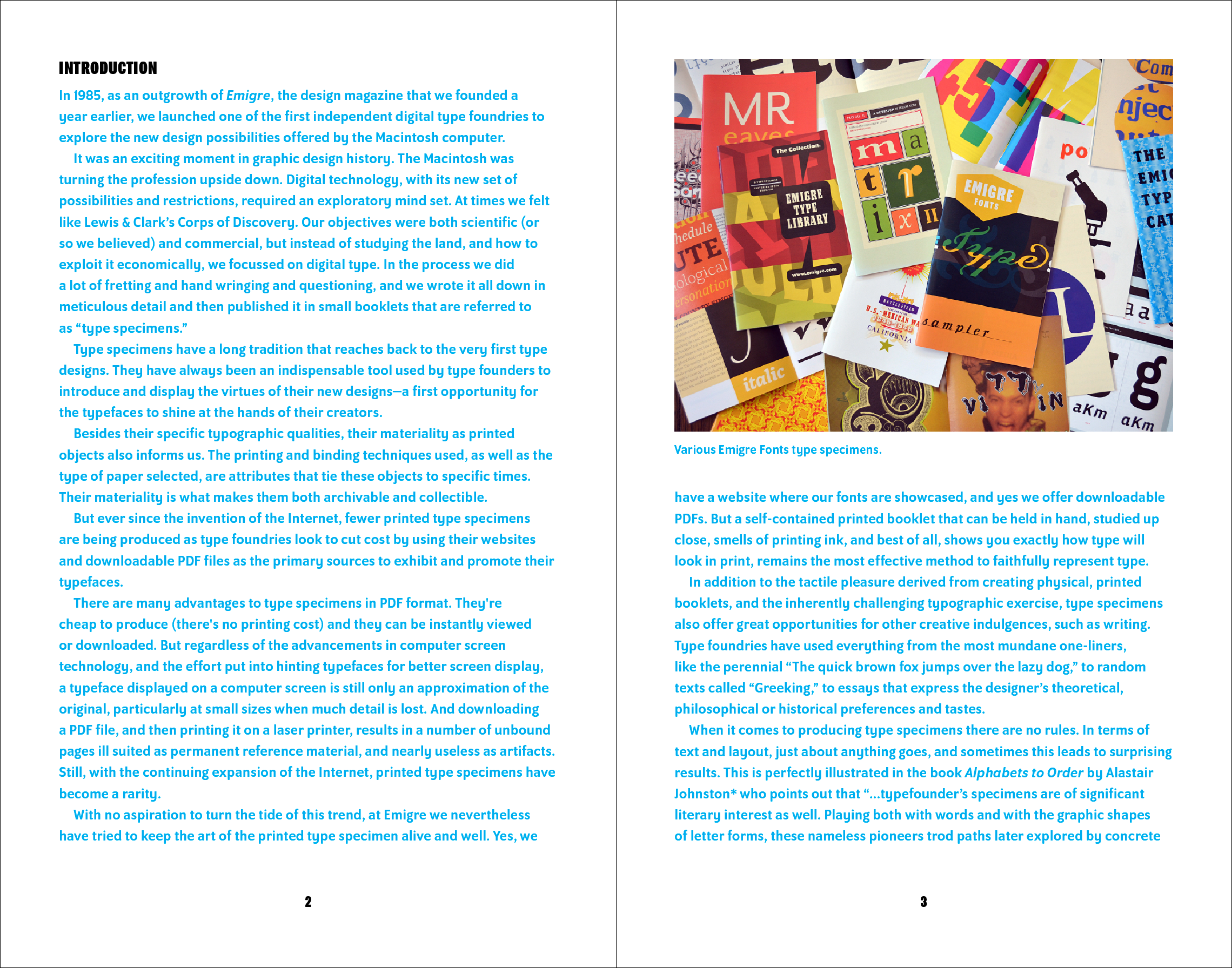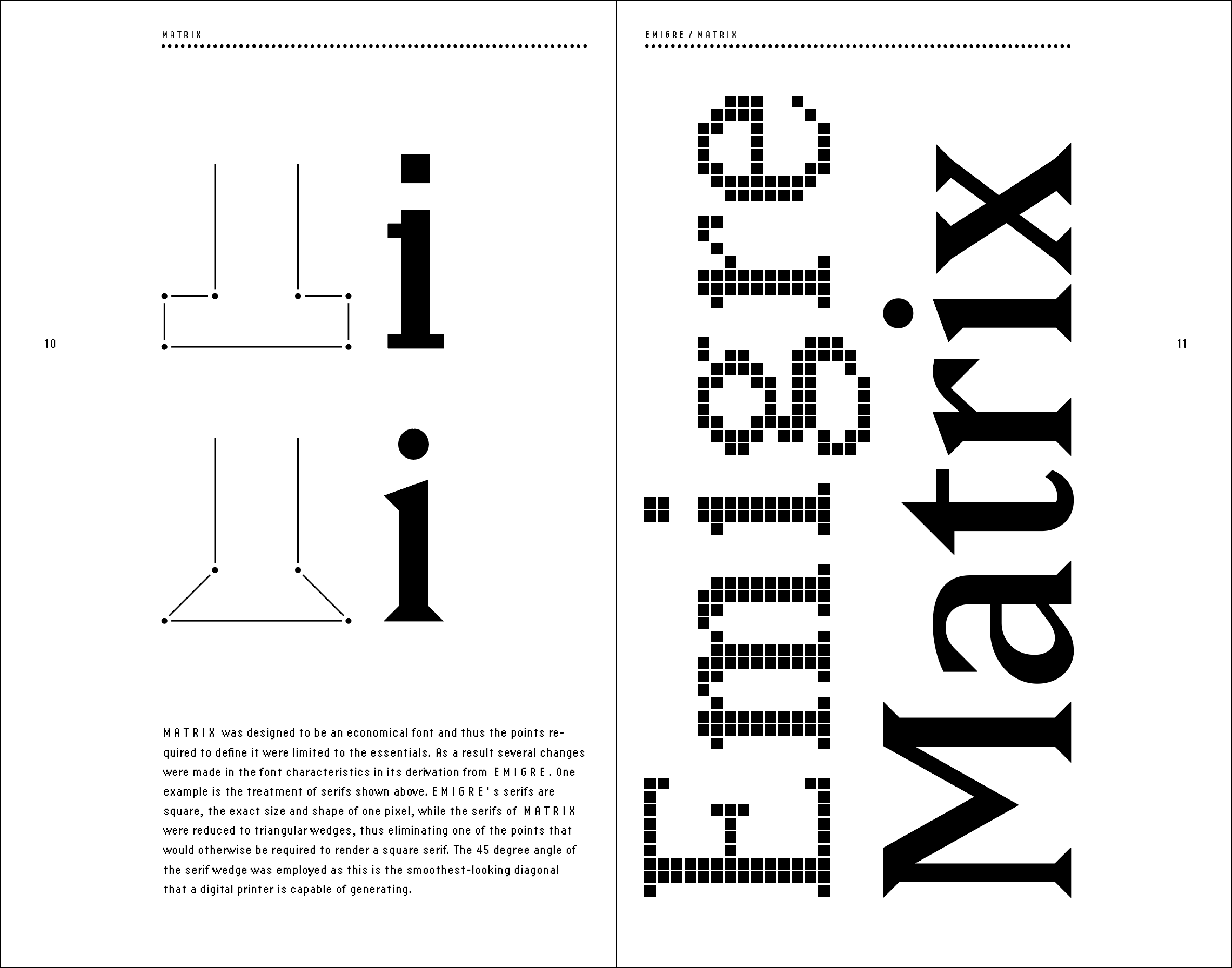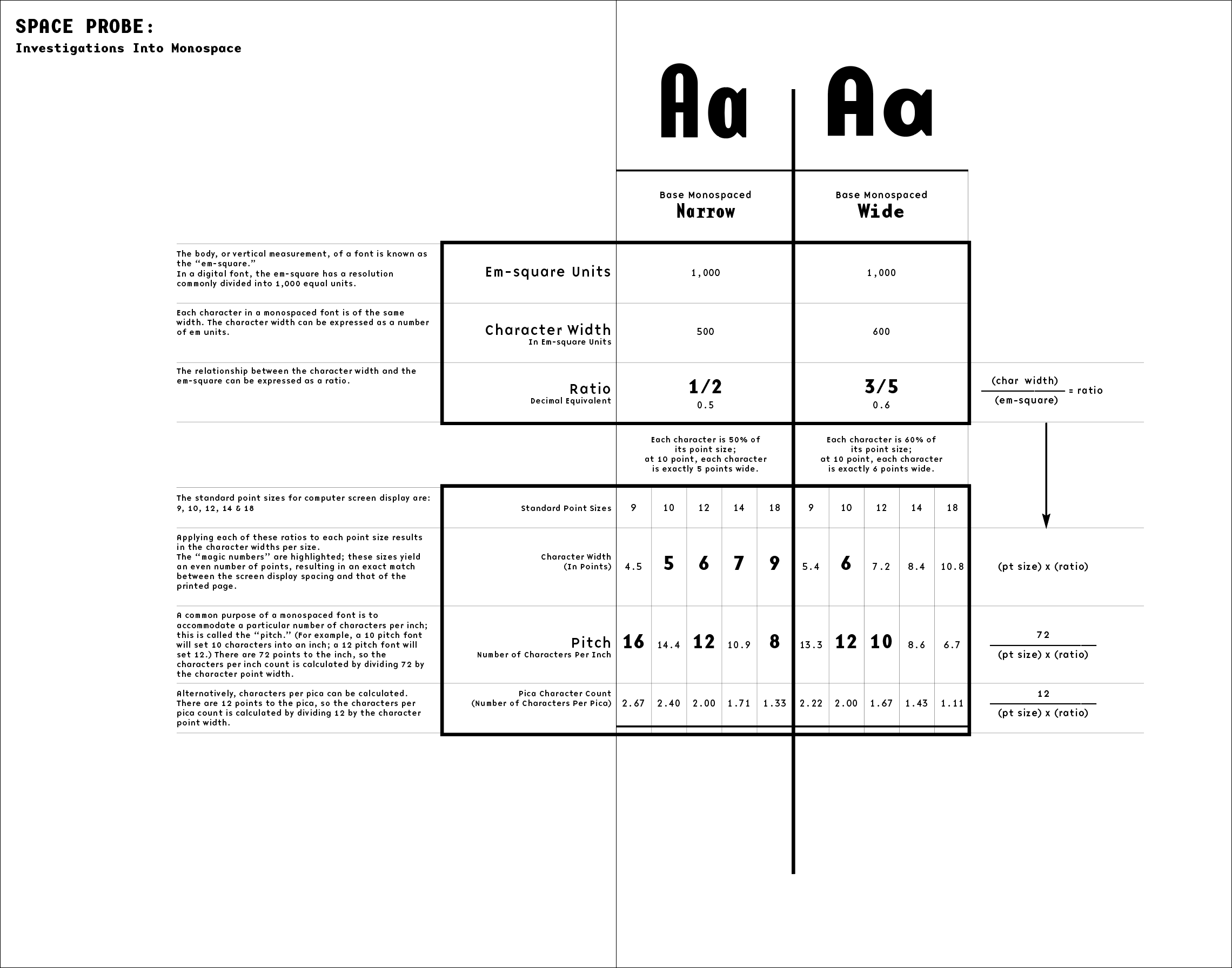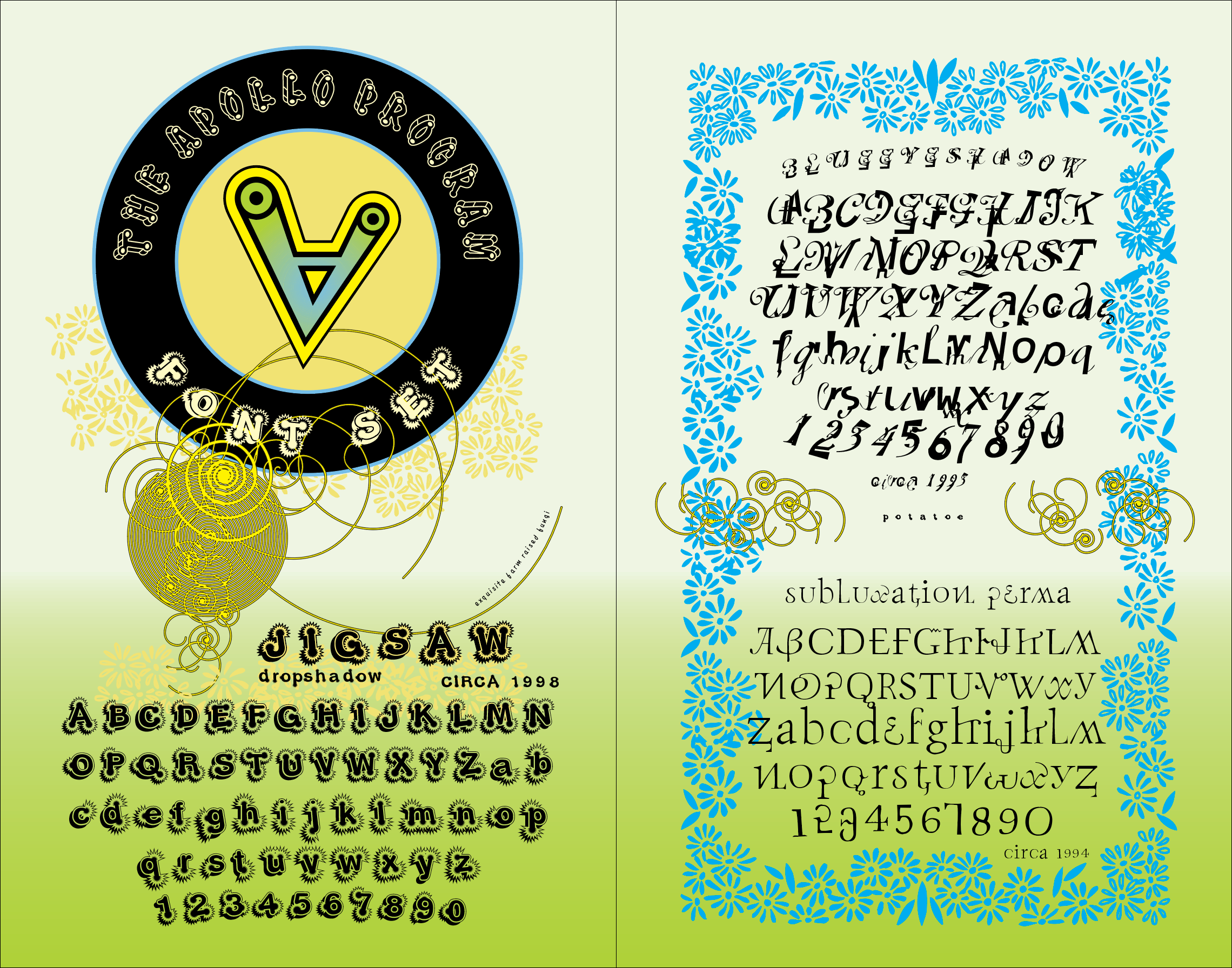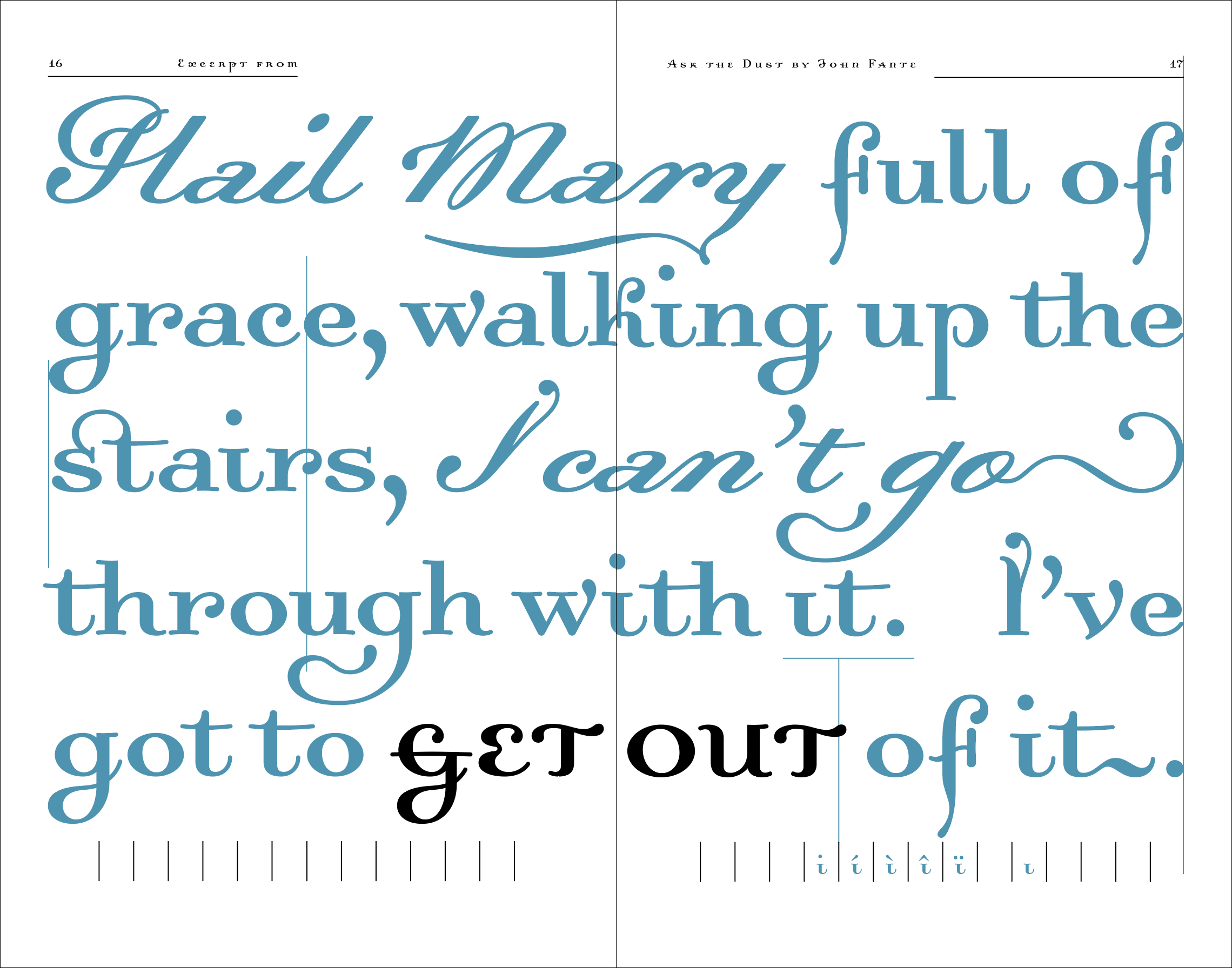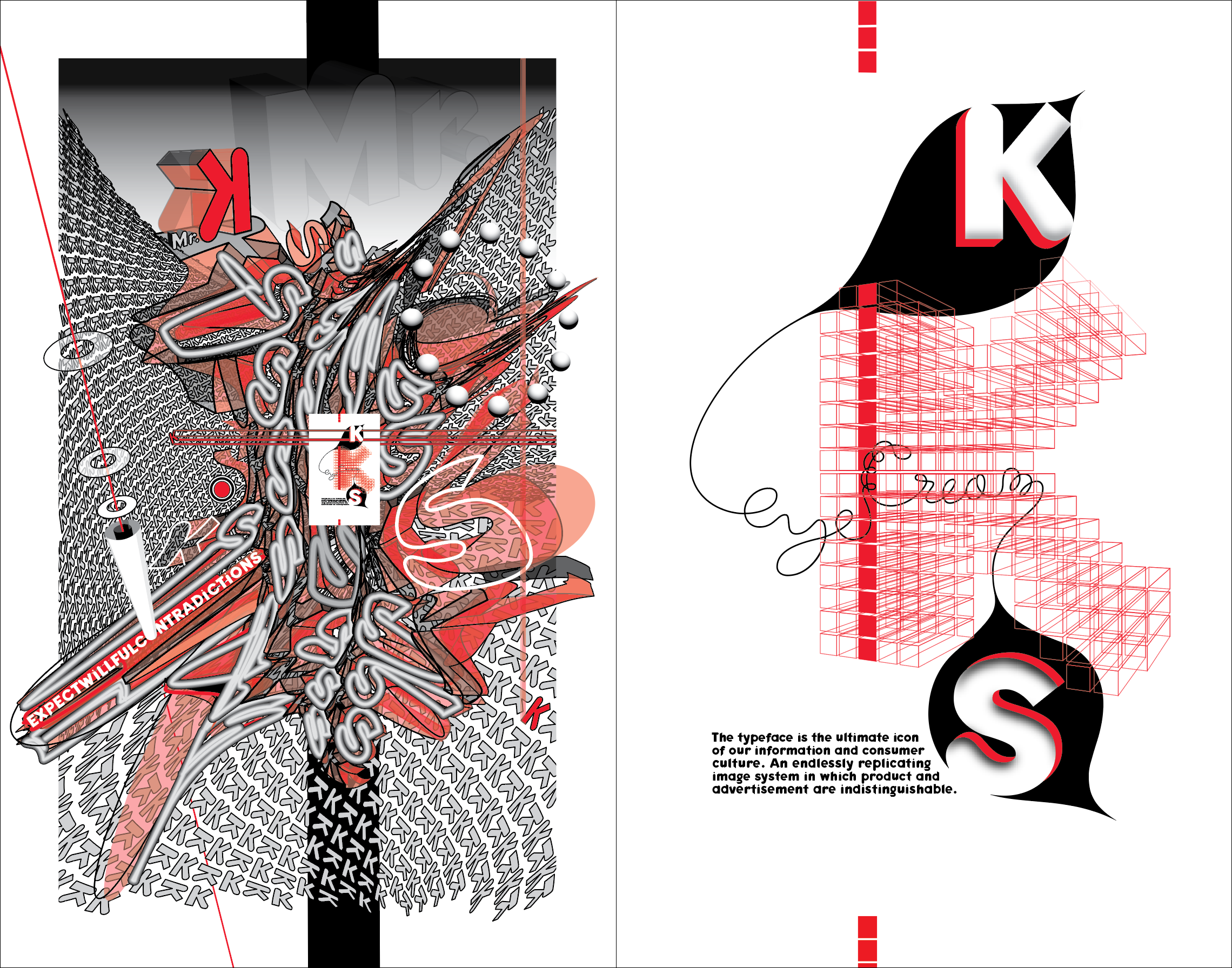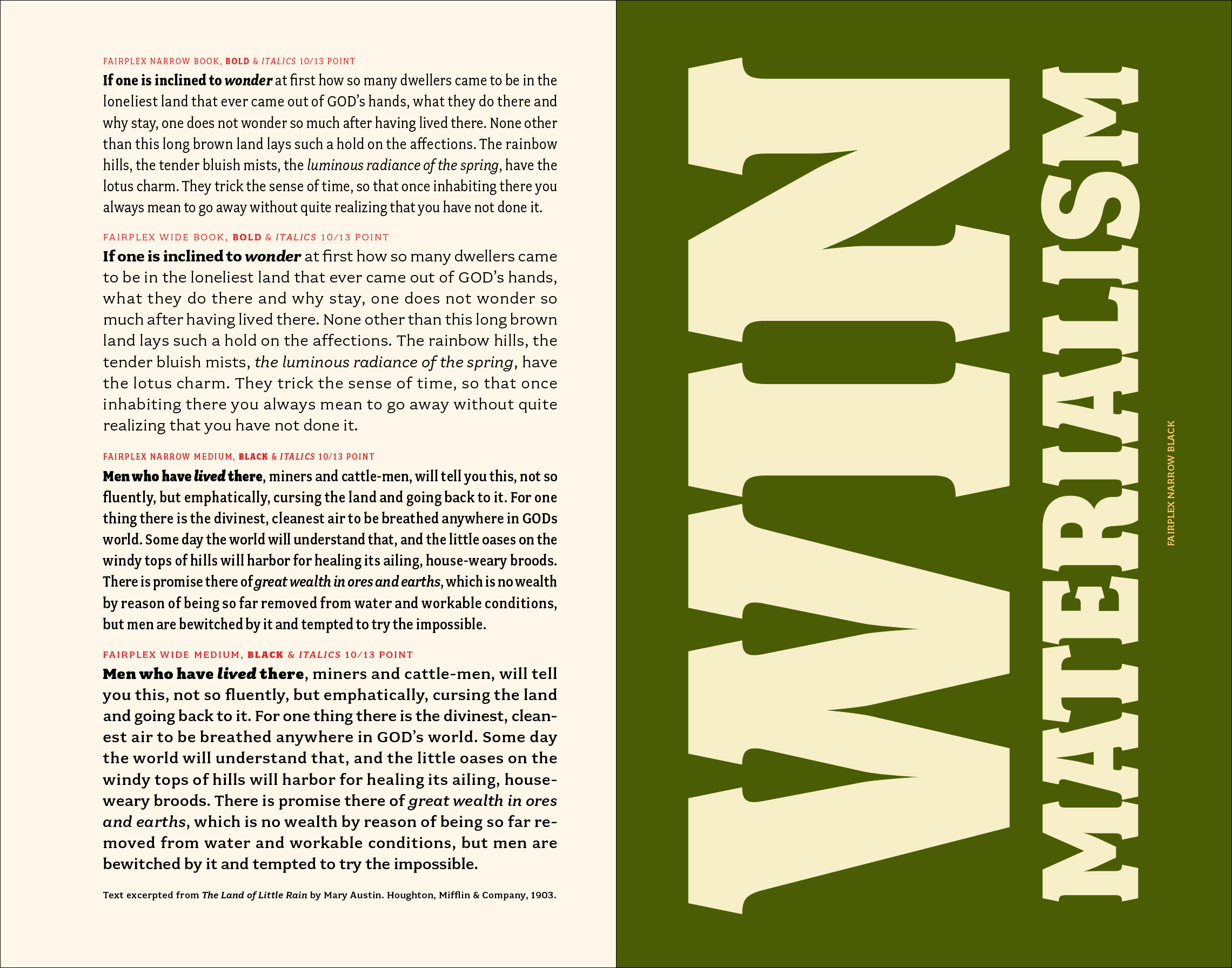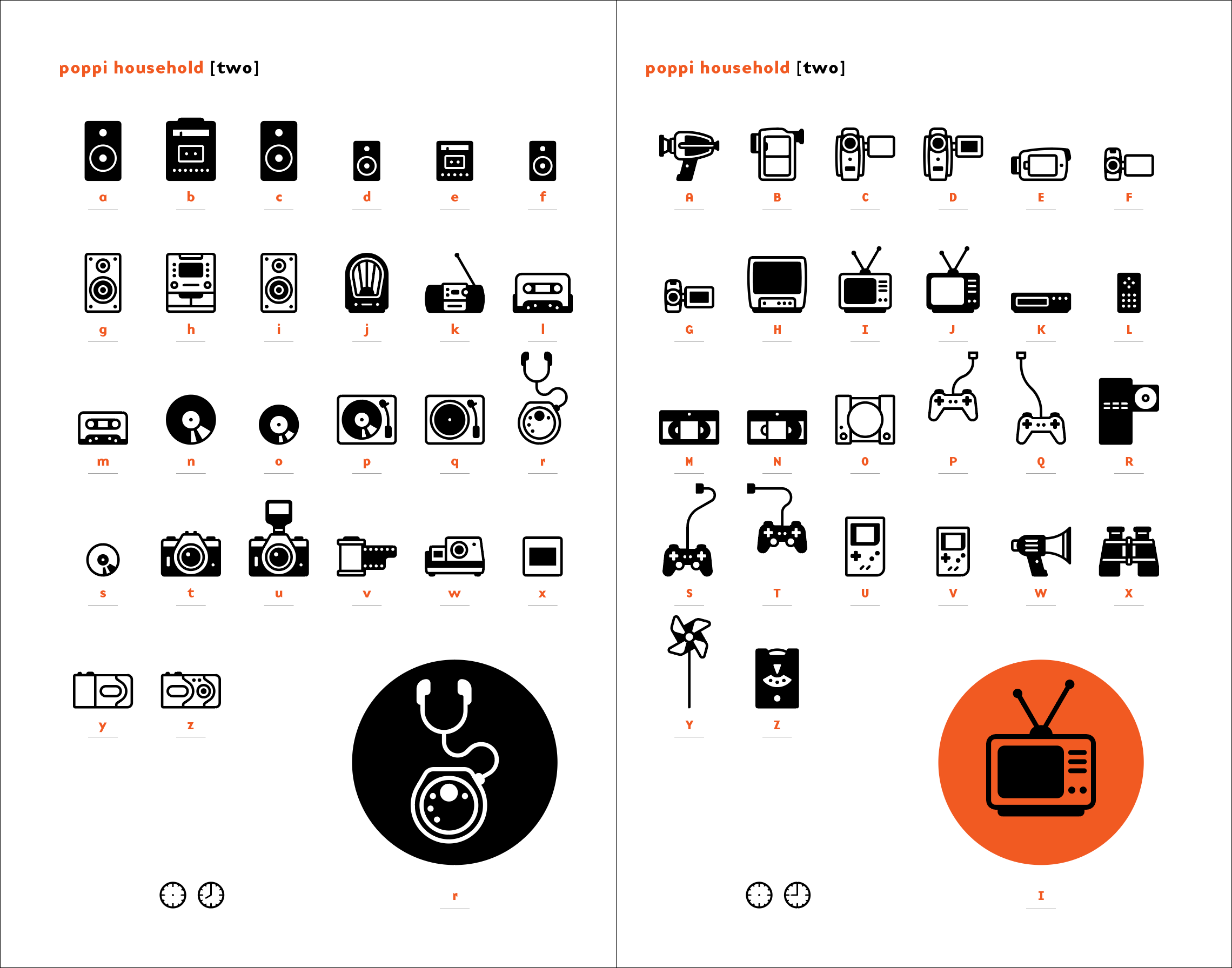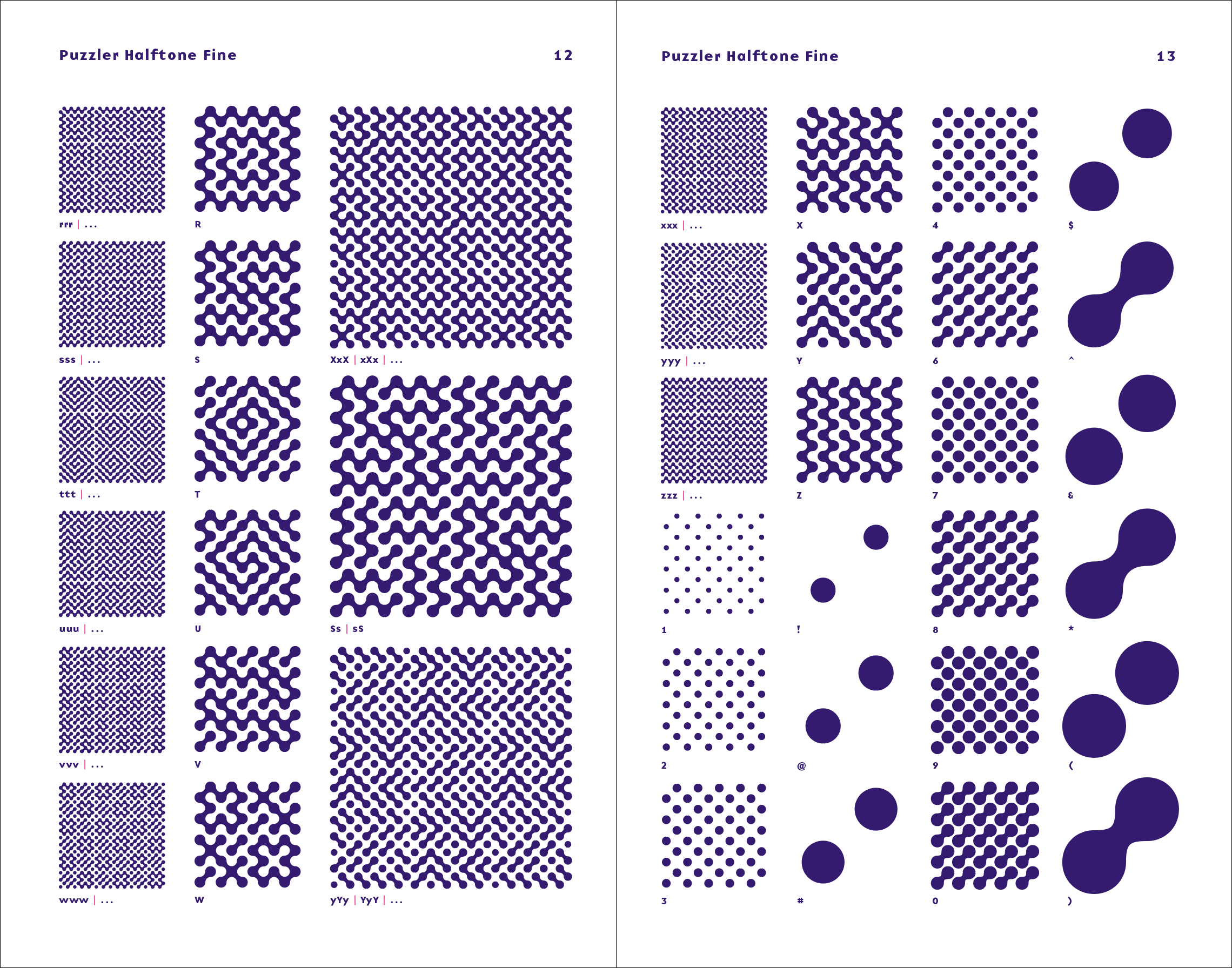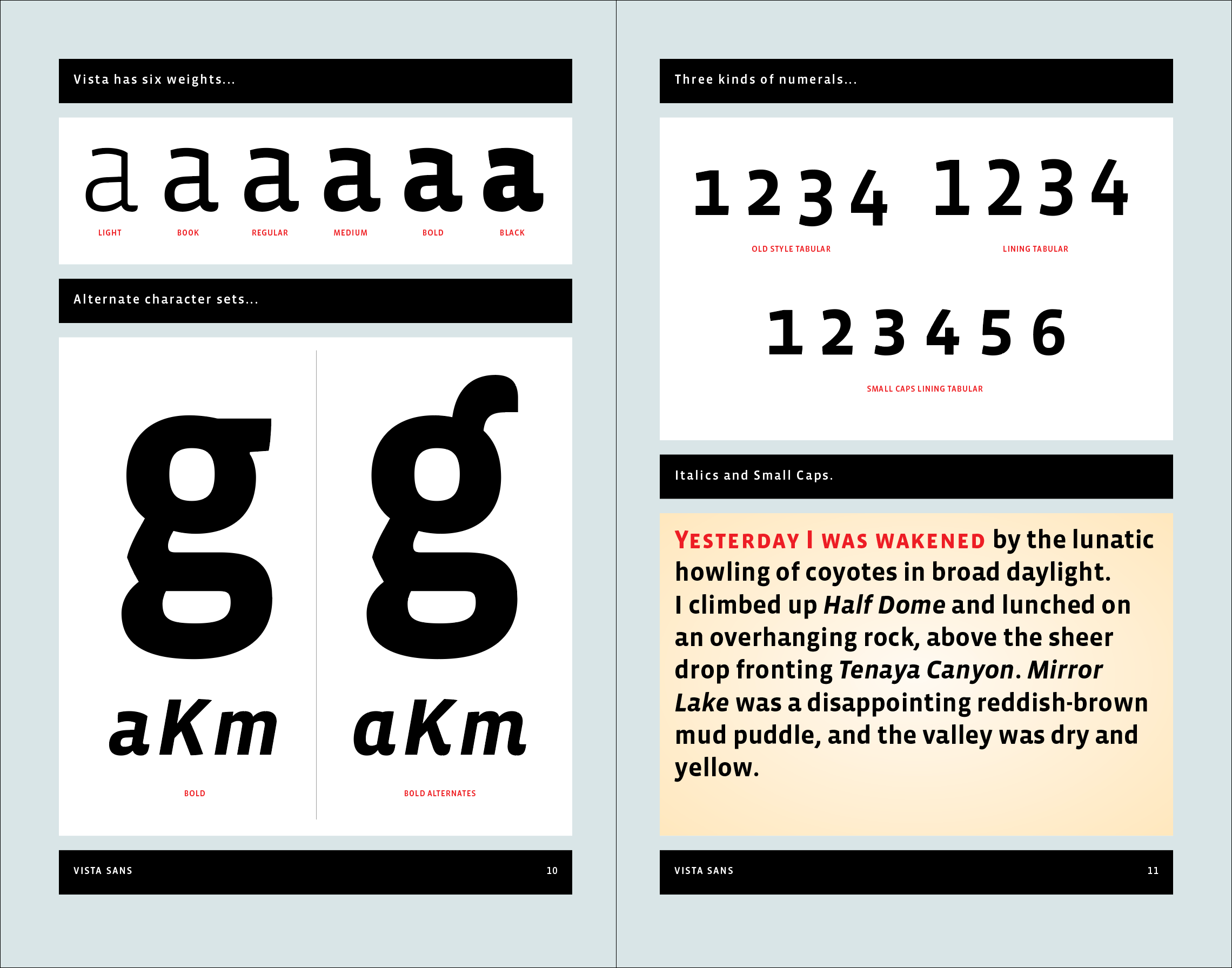
Emigre Fonts Book
Designed and edited by Rudy VanderLans.
This book is a 752-page compilation celebrating the art of the type specimen. It features reprints of Emigre's most remarkable specimen designs covering a period of 30 years. Besides displaying the virtues of the fonts and revealing the processes used to design them, these specimens go beyond their primary function as sales tools and can be enjoyed as much for the typefaces as for their esoteric content. If your collection of Emigre's popular type specimens is incomplete, or if you've missed out on these entirely, here's your opportunity to catch up.